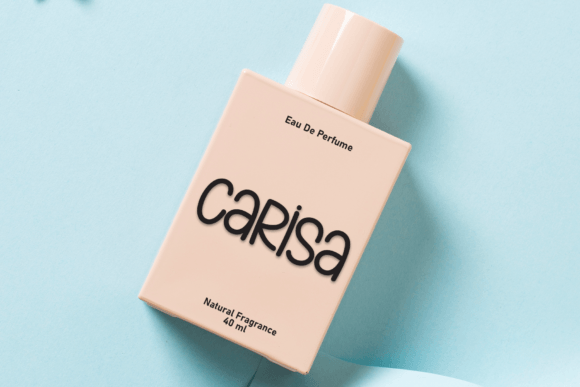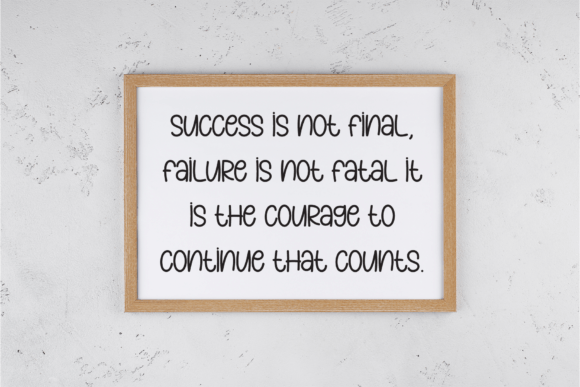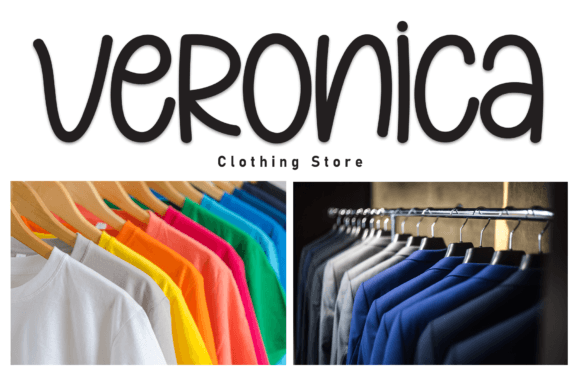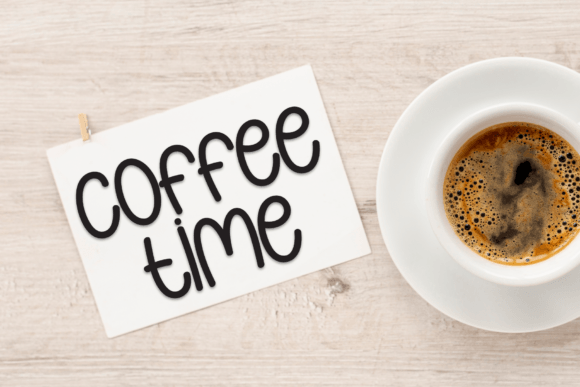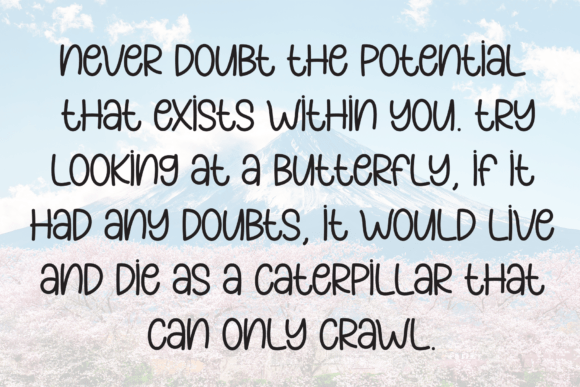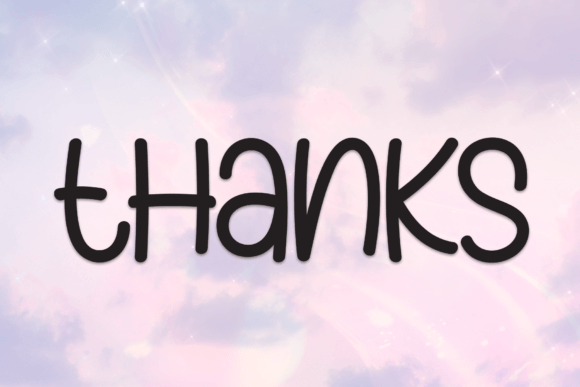
Cute Pinky Font: The Sweet and Friendly Handwritten Font for Your Designs
Are you looking for a font that can add a touch of sweetness and friendliness to your designs? Look no further than Cute Pinky, a beautiful handwritten font that is perfect for a wide range of projects. In this article, we’ll take a closer look at Cute Pinky and explore its features, benefits, and uses.
What is Cute Pinky Font?
Cute Pinky is a sweet and friendly handwritten font that is designed to bring a personal touch to your designs. Its natural and unique style makes it incredibly fitting to a large pool of designs, from creative projects to commercial ones. The font is perfect for designers, crafters, and anyone who wants to add a touch of whimsy and charm to their work.
Features of Cute Pinky Font
Cute Pinky font has several features that make it stand out from other fonts. Some of its key features include:
- Handwritten style: Cute Pinky is a handwritten font that has a natural and unique style, making it perfect for designs that require a personal touch.
- Sweet and friendly: The font has a sweet and friendly tone that makes it perfect for designs that require a playful and approachable feel.
- Unique and creative: Cute Pinky has a unique and creative style that makes it perfect for designers and crafters who want to stand out from the crowd.
- Versatile: The font is versatile and can be used for a wide range of designs, from creative projects to commercial ones.
Benefits of Using Cute Pinky Font
There are several benefits to using Cute Pinky font in your designs. Some of the benefits include:
- Adds a personal touch: Cute Pinky font adds a personal touch to your designs, making them more relatable and engaging.
- Perfect for creative projects: The font is perfect for creative projects, such as crafting, scrapbooking, and journaling.
- Great for commercial use: Cute Pinky font can also be used for commercial projects, such as branding, packaging, and advertising.
- Easy to read: The font is easy to read, making it perfect for designs that require a clear and legible text.
Uses of Cute Pinky Font
Cute Pinky font can be used for a wide range of designs, including:
- Crafting and scrapbooking: The font is perfect for crafting and scrapbooking projects, such as journaling, card making, and paper crafting.
- Branding and packaging: Cute Pinky font can be used for branding and packaging projects, such as logo design, label design, and product packaging.
- Advertising and marketing: The font can be used for advertising and marketing projects, such as flyers, brochures, and social media graphics.
- Digital design: Cute Pinky font can be used for digital design projects, such as website design, email marketing, and social media graphics.
Cute Pinky font is a sweet and friendly handwritten font that is perfect for a wide range of designs. Its natural and unique style makes it incredibly fitting to a large pool of designs, from creative projects to commercial ones. With its versatility, ease of use, and range of benefits, Cute Pinky font is a great addition to any designer’s or crafter’s toolkit. So why not give it a try and see how it can enhance your designs?